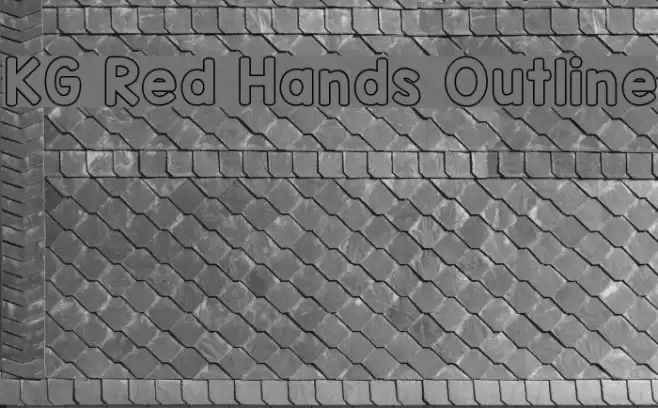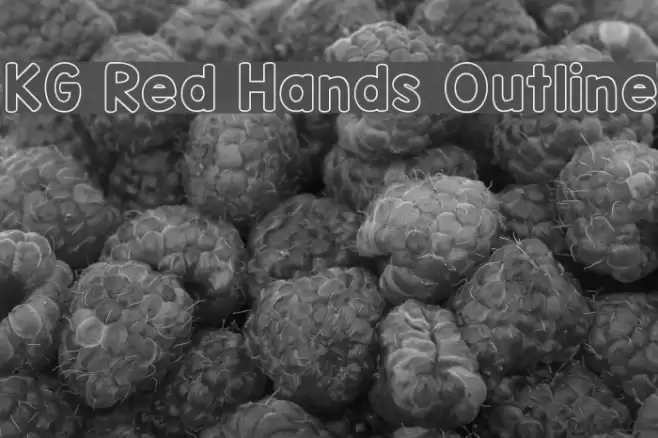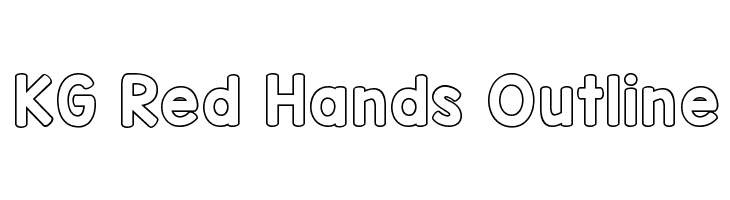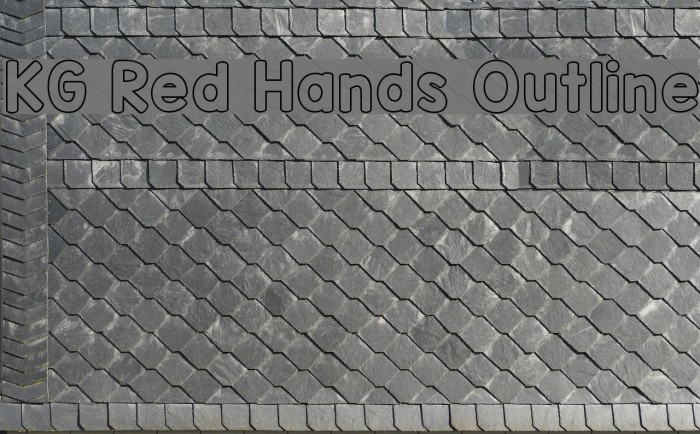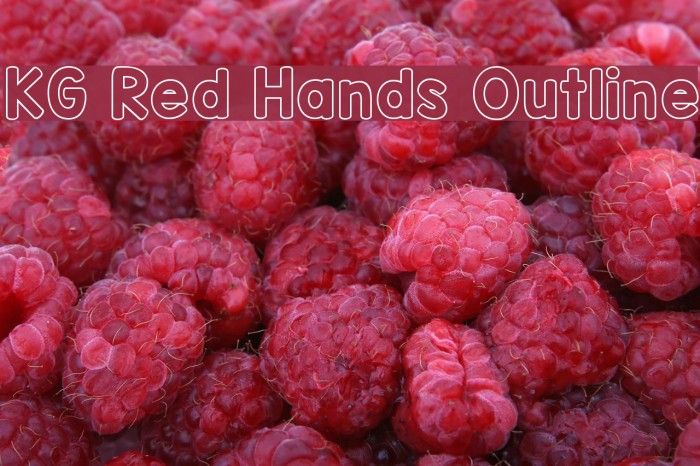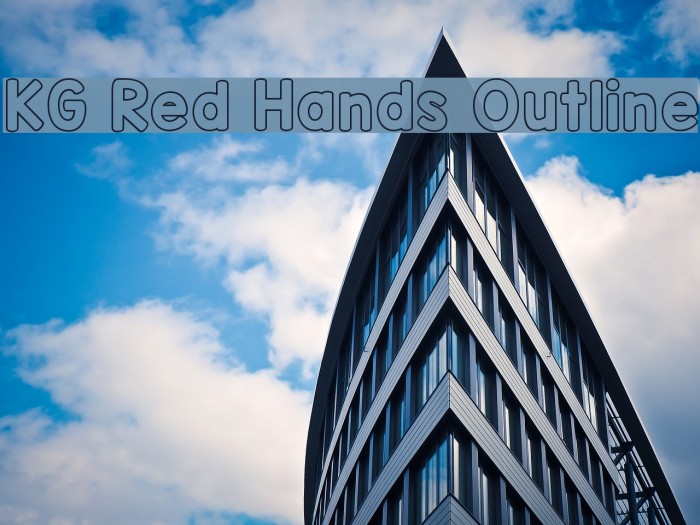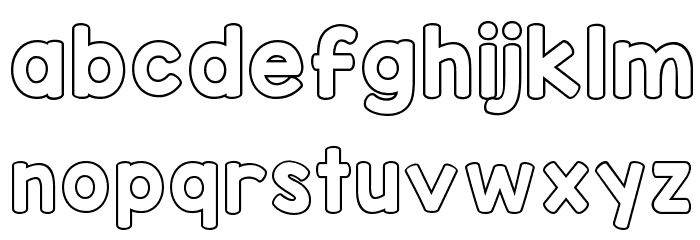
KG Red Hands Outline Font
KG Red Hands Outline Description
This playful and bold outline font features rounded edges and a consistent stroke width, giving it a friendly and approachable appearance. The uppercase and lowercase letters maintain a uniform style, with a slight bubble-like quality that adds to its charm. The numerals and special characters are designed to match the overall aesthetic, ensuring a cohesive look across all text. The font's outline nature allows for creative color fills and layering effects, making it versatile for various design projects. Its simplicity and clarity make it easy to read, while the outline style adds a unique twist that can enhance visual interest.
A playful, bold outline font with rounded edges and a bubble-like appearance from Uncategorized fonts.
- Proposed Projects: Ideal for children's books, playful branding, posters, and creative design projects requiring a fun and approachable look.
- Overall Style: Playful, Modern